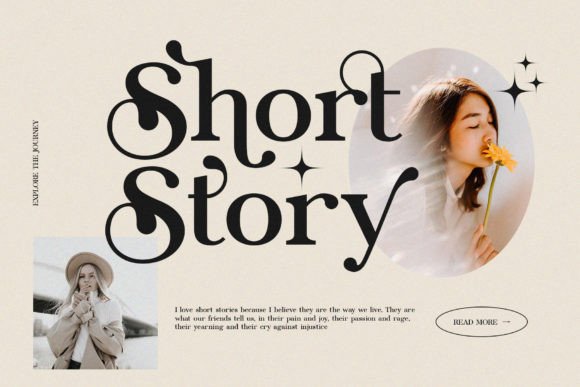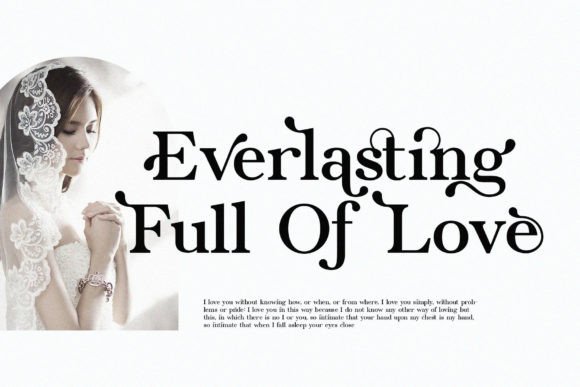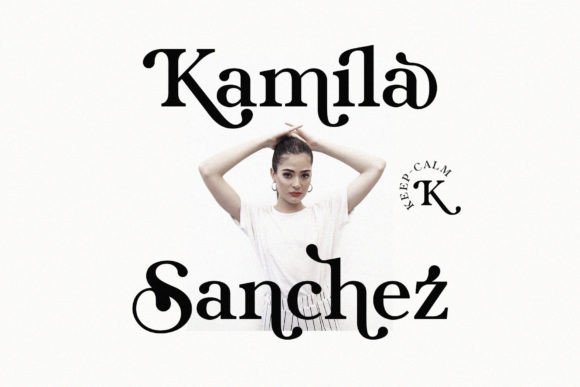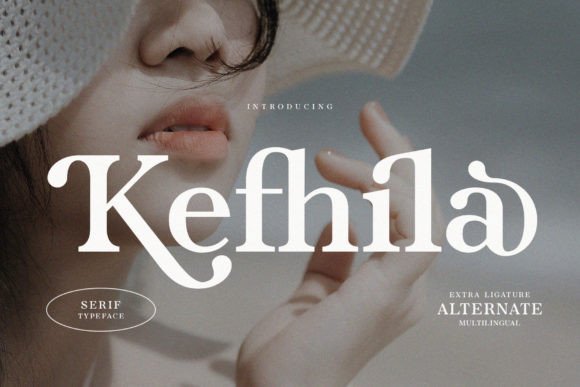
Introduction to Kefhila Font
Kefhila is a feminine indie serif font that emanates a sense of elegance and creativity.
Its unique and organic letterforms feature a balanced mix of curves and angles, giving it a sense of sophistication and whimsy The font’s indie-inspired and refined design is perfect for anything from branding to editorial design.